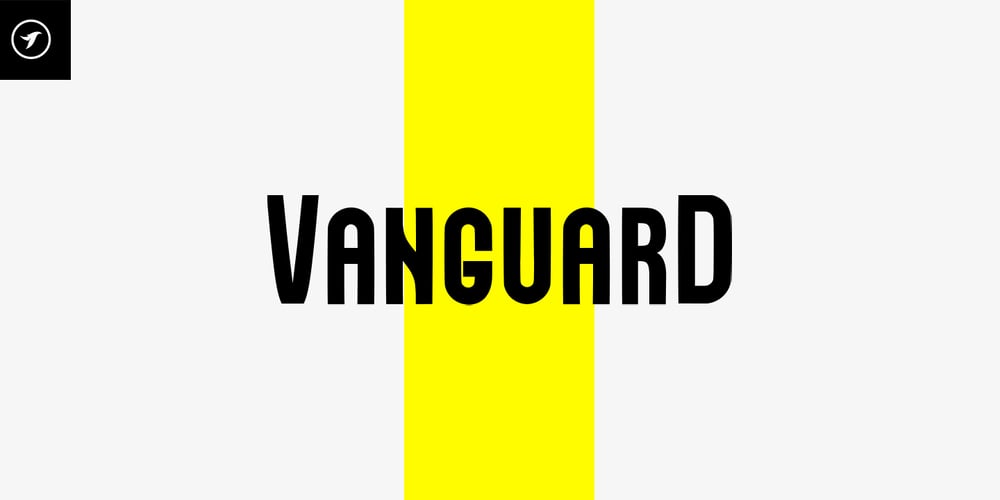
Vanguard Display
Vanguard Display font
Vanguard Display Font Family was designed by Jean Johnson and published by Designova. Vanguard Display contains 4 styles and family package options. VANGUARD is a unique typeface inspired from the classic Neo Retro style but with an added touch of modernism bringing a balance in it’s design.The typeface is perfect for headlines, big text, branding, logotypes & display usage. This all-caps typeface is also perfect for creating great logos, promotional content and marketing graphics that lift the creative aspects of the design. Please see the examples shown above to get an idea about the capability of this typeface.